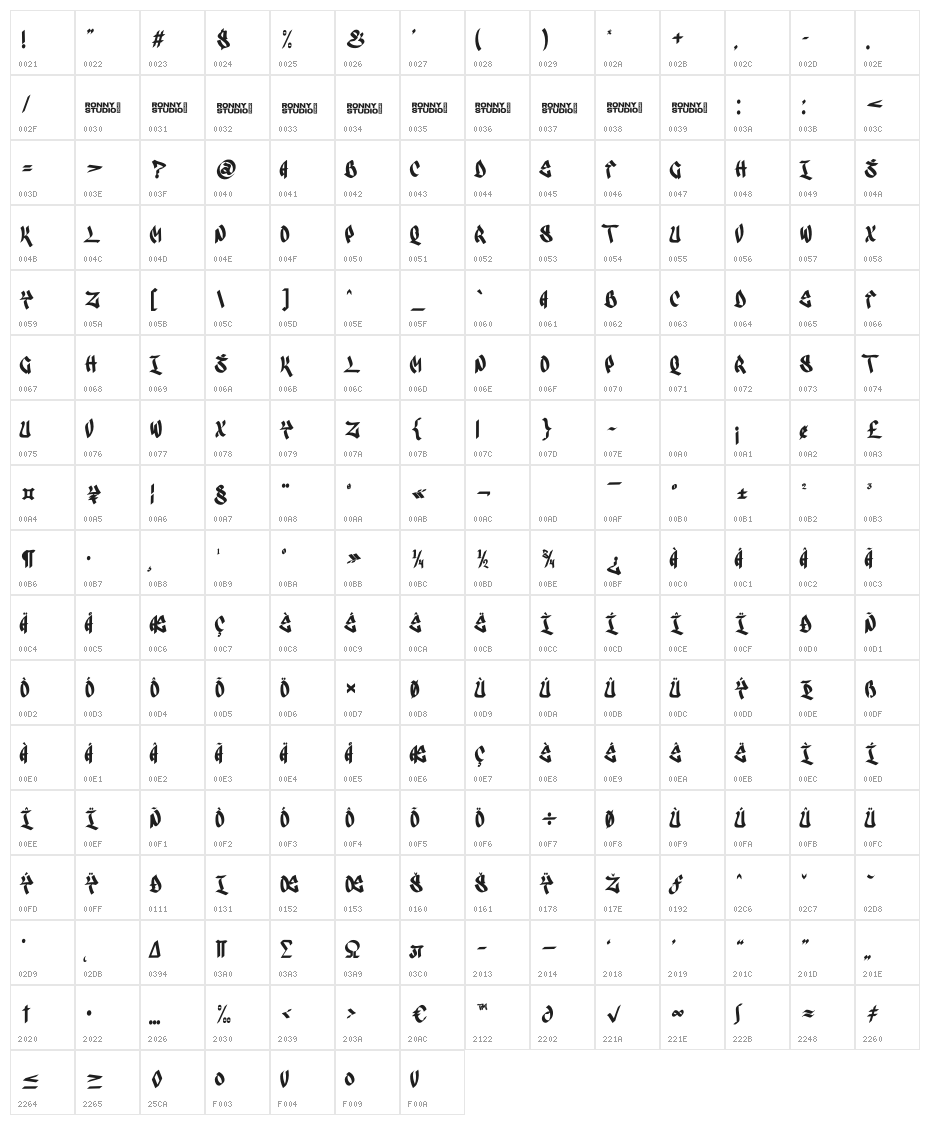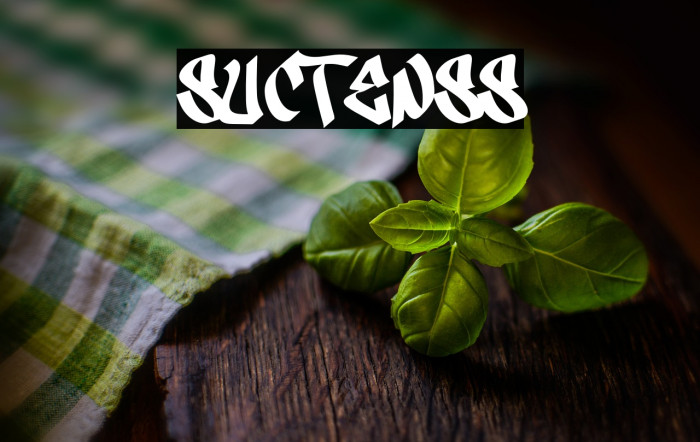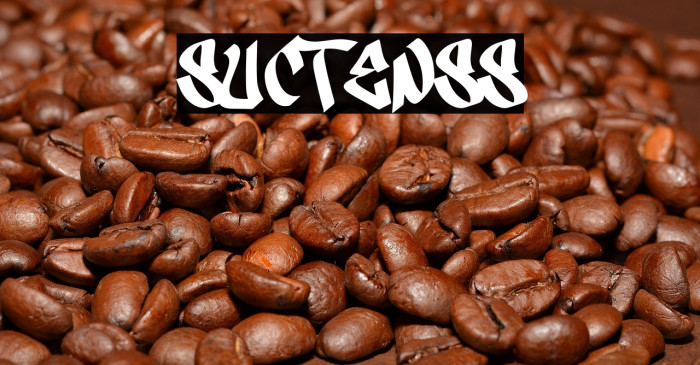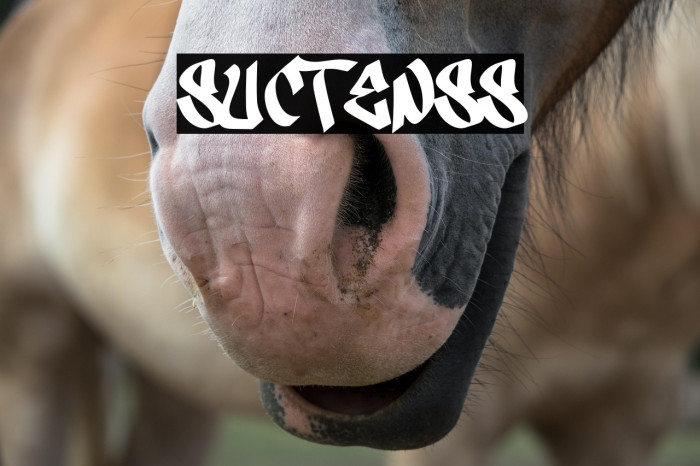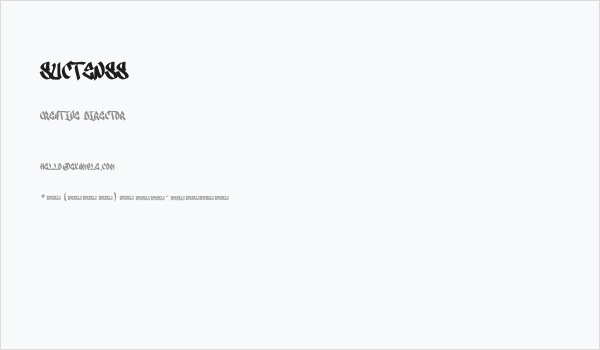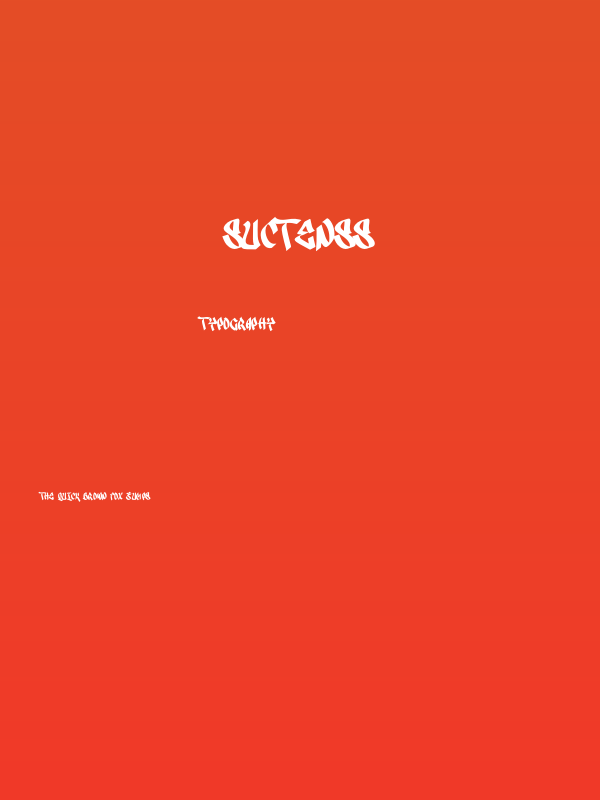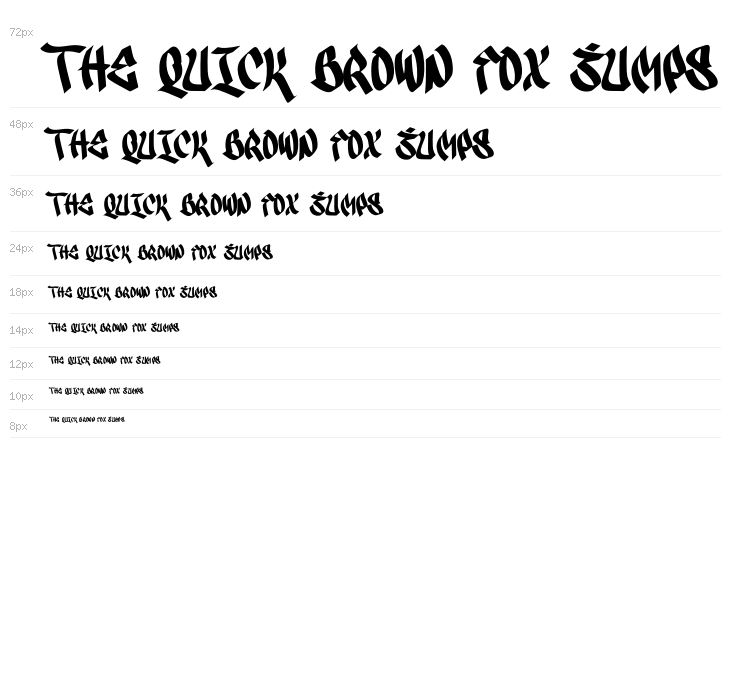
Suctenss Font
Suctenss Description
This font features a bold and striking design with sharp, angular edges and a distinct blackletter influence. The characters are heavily stylized, with exaggerated serifs and a gothic aesthetic that gives it a dramatic and eye-catching appearance. The uppercase and lowercase letters maintain a consistent style, with a strong emphasis on vertical lines and pointed terminals. The numbers and special characters are equally bold, fitting seamlessly into the overall design. This font is perfect for projects that require a strong visual impact and a touch of medieval or gothic flair.
| Overall Style | Gothic, Decorative |
| Proposed Projects | Ideal for tattoo designs, band logos, gothic-themed posters, and any project requiring a bold, dramatic typeface. |